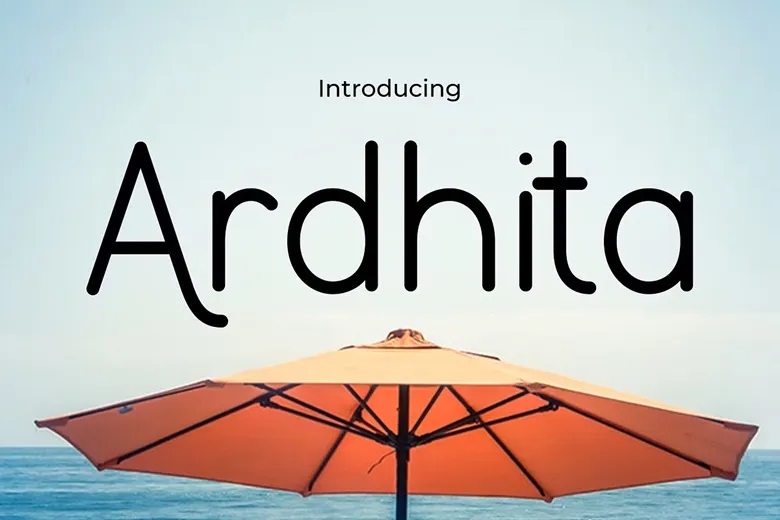
Ardhita Font
Ardhitā is a font that combines timeless elegance with vintage charm. Its carefully designed details and decorative touches give it a graceful, nostalgic feel. This makes it a great option for luxury branding, wedding invitations, and high-end editorial layouts.
This versatile typeface mixes traditional style with a modern edge, bringing a regal look to logos, quotes, invitations, and packaging.
Ardhitā is more than just a font. It brings a sense of timeless sophistication to your projects, connecting classic and modern styles.
Ardhita Sans Serif Font